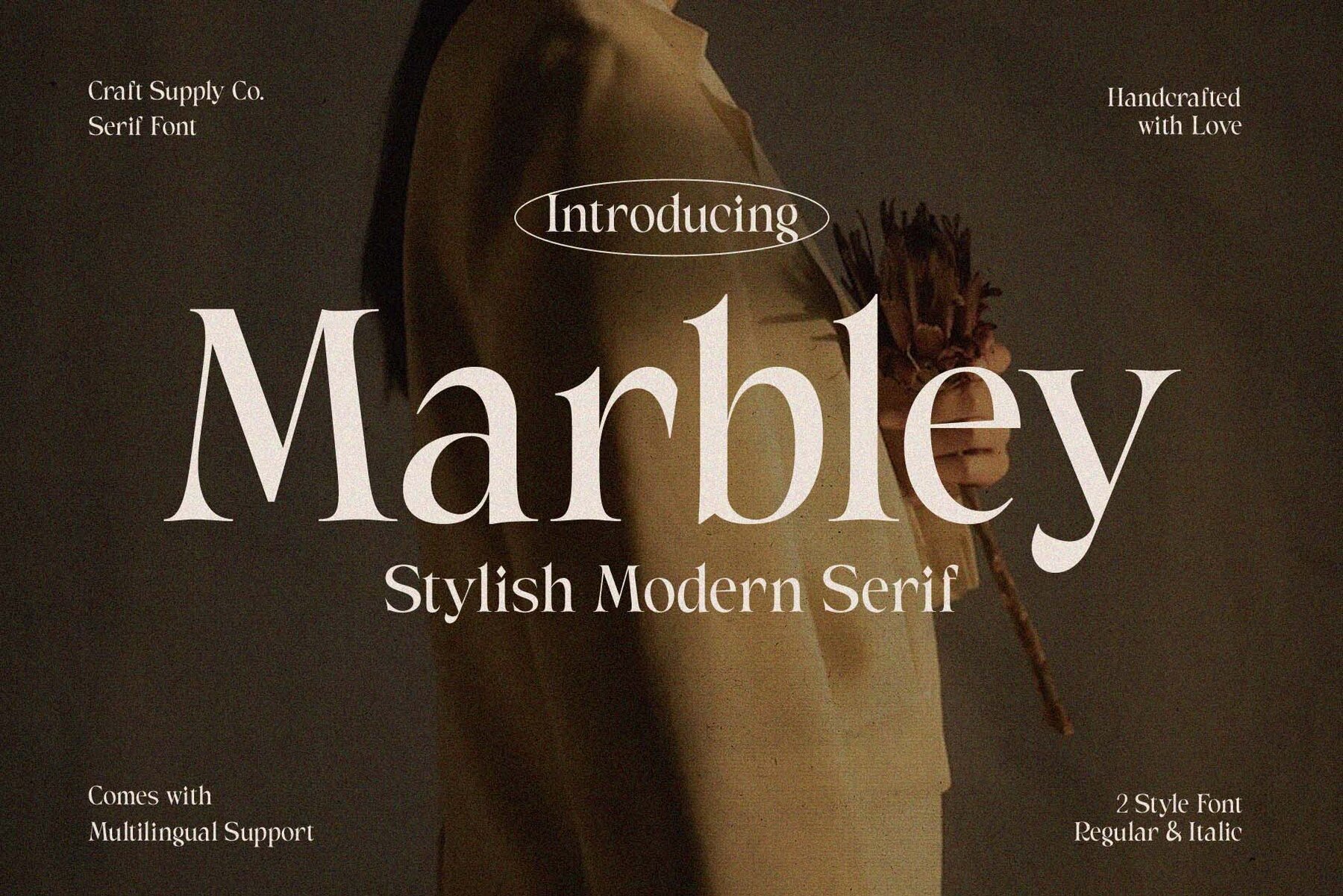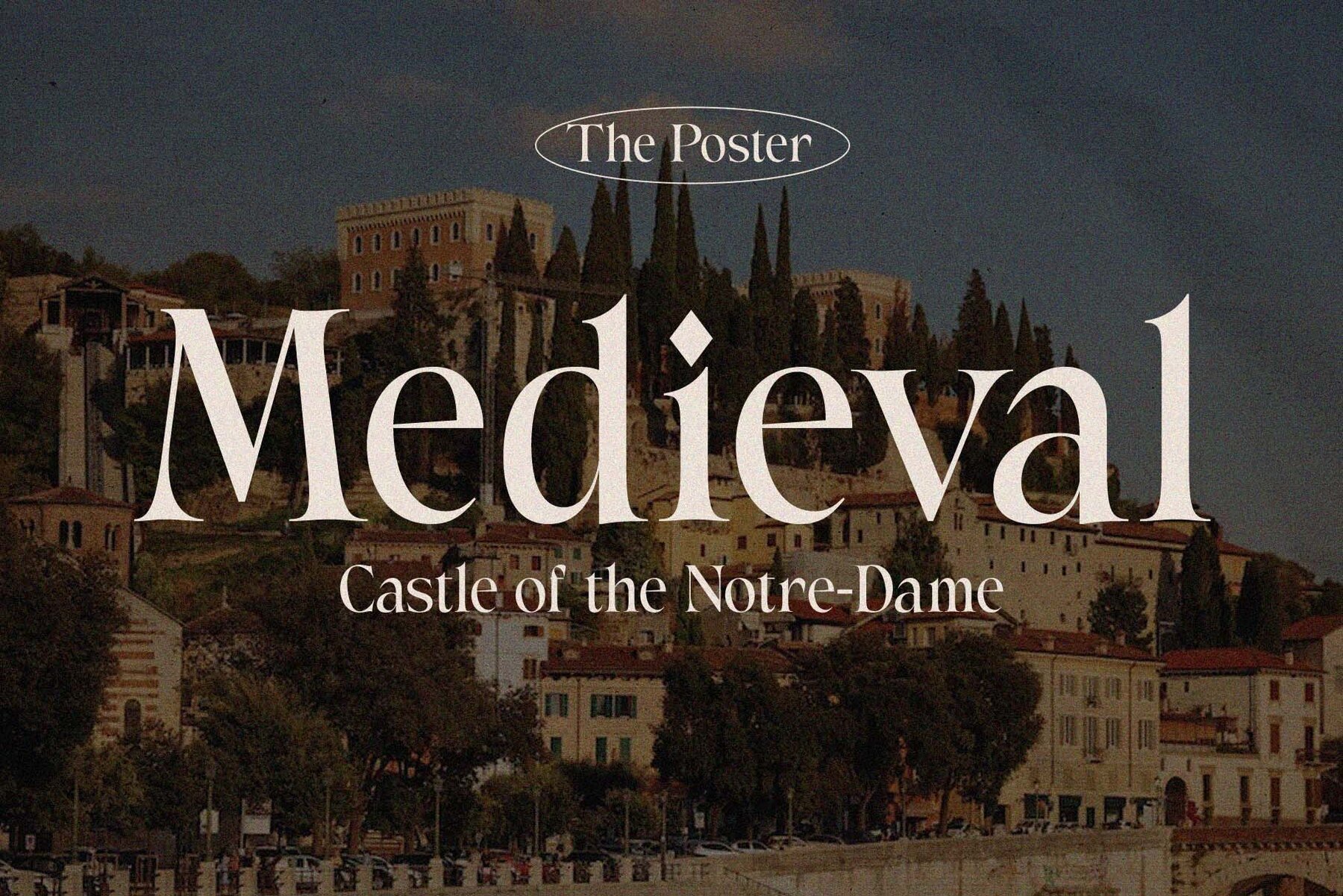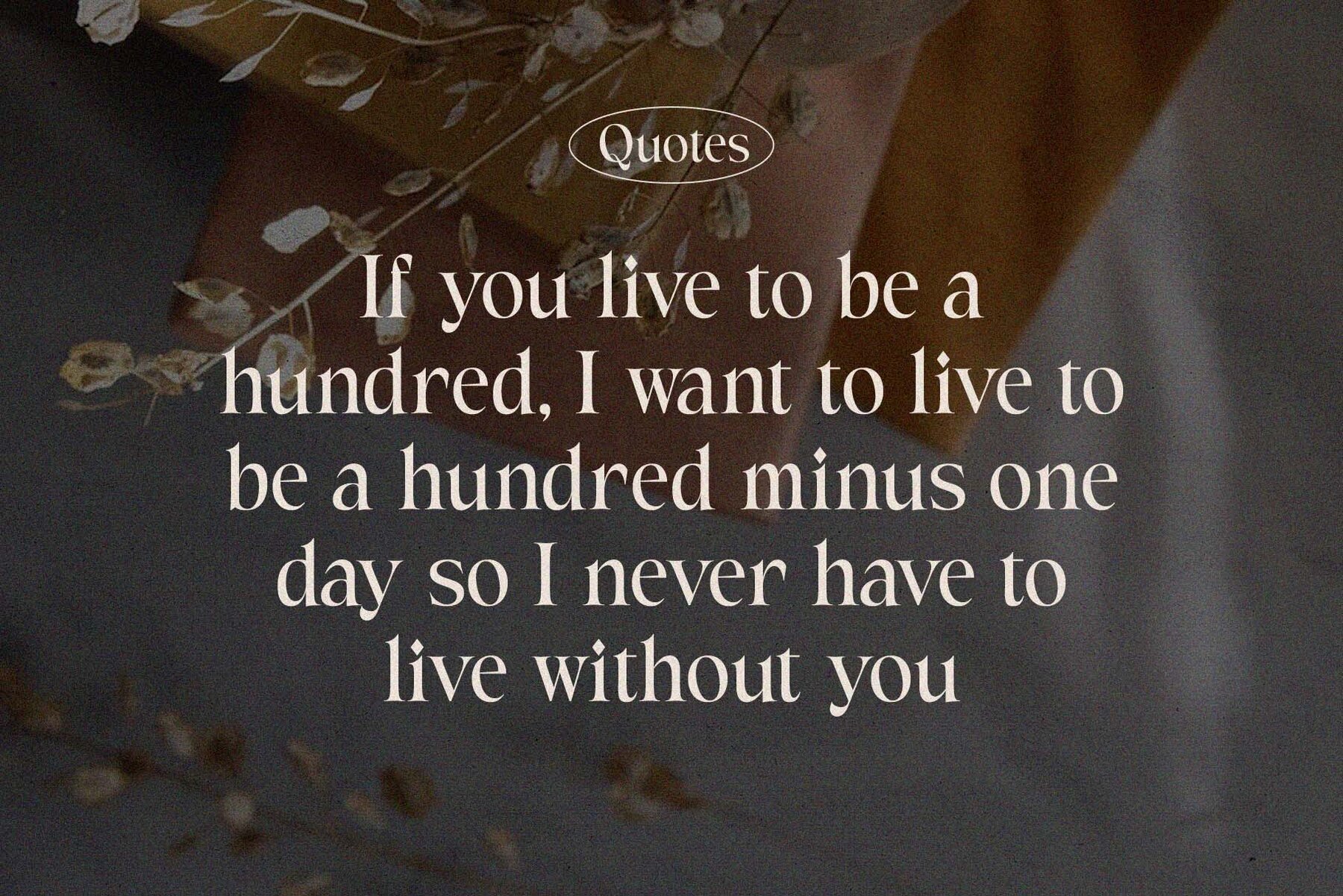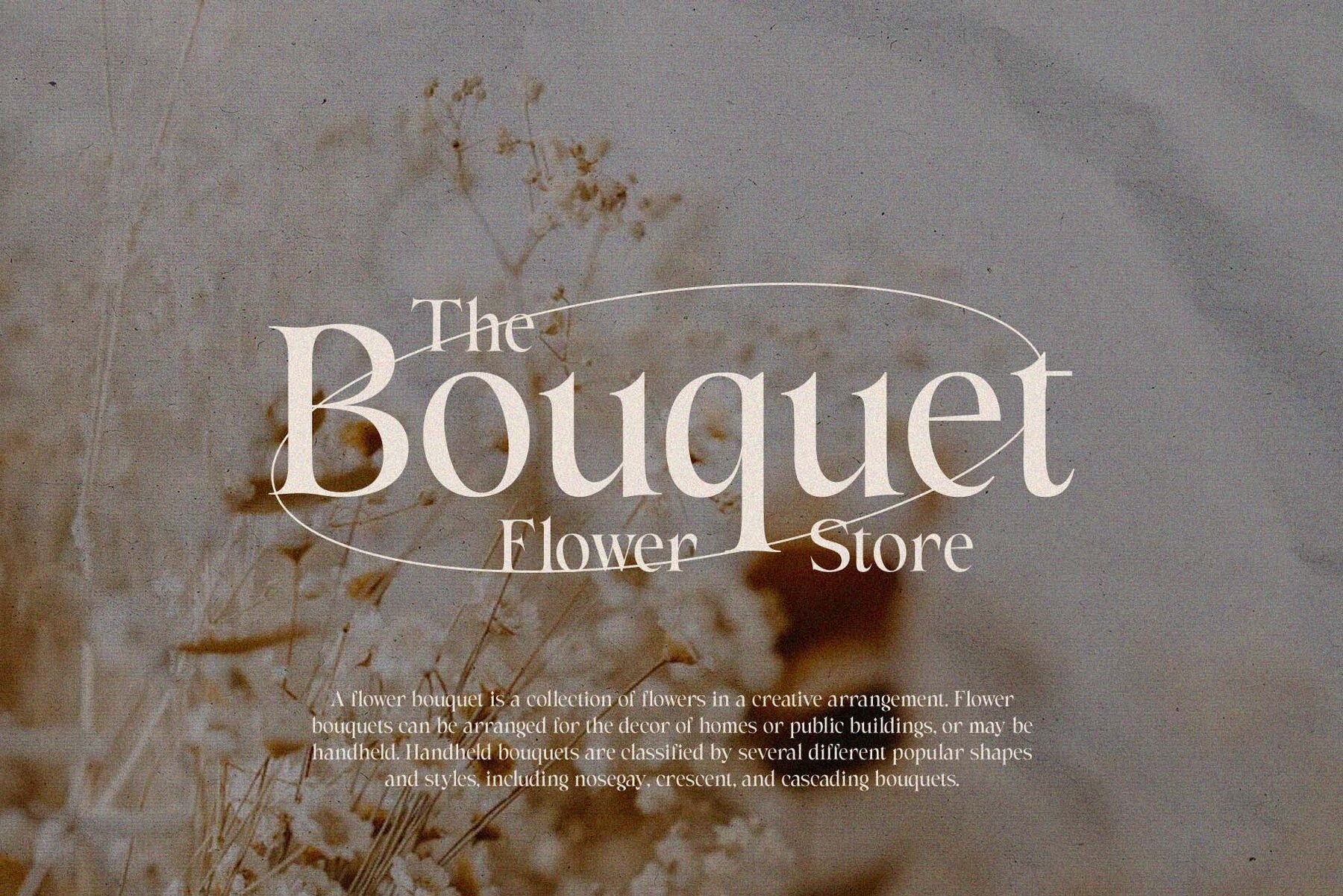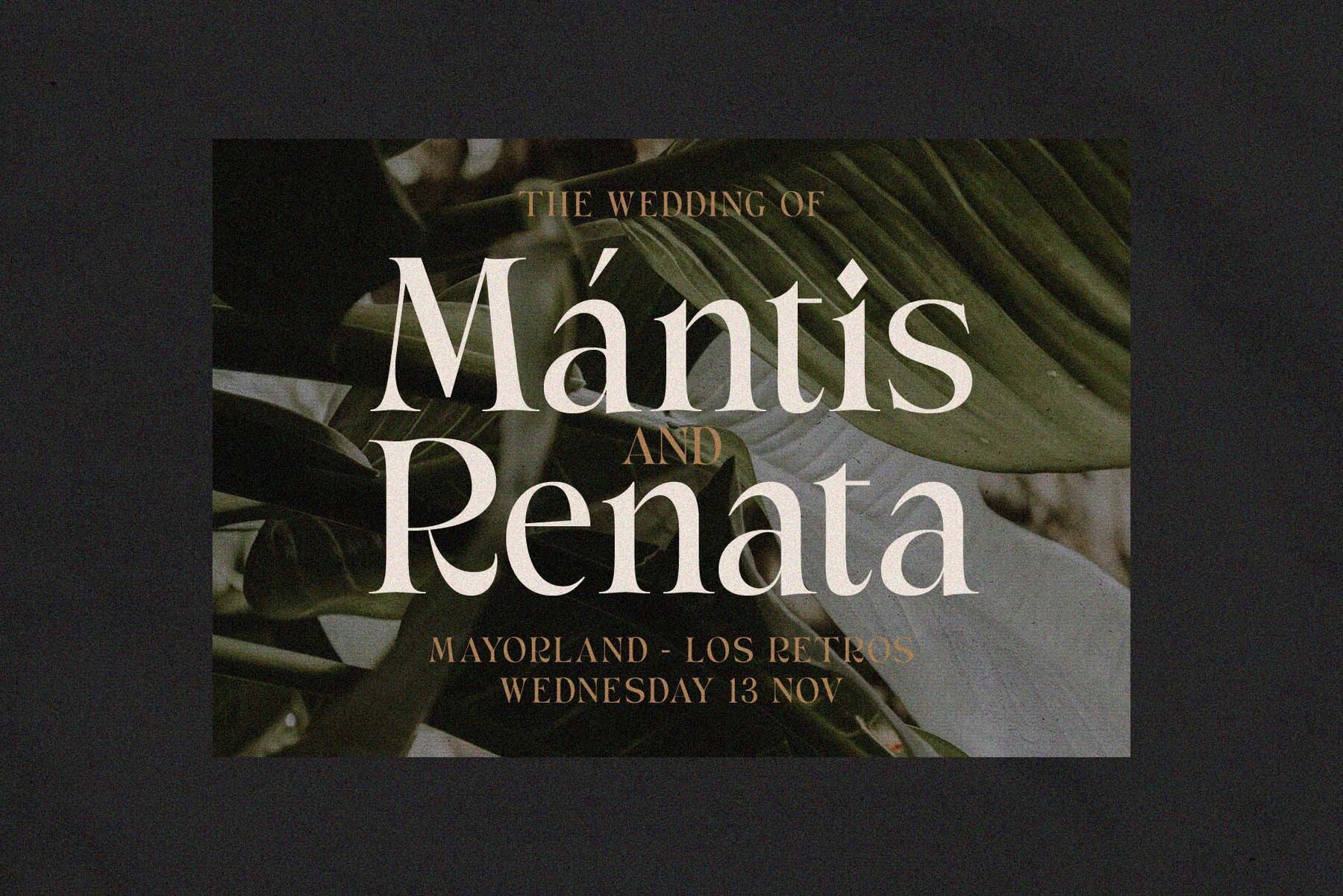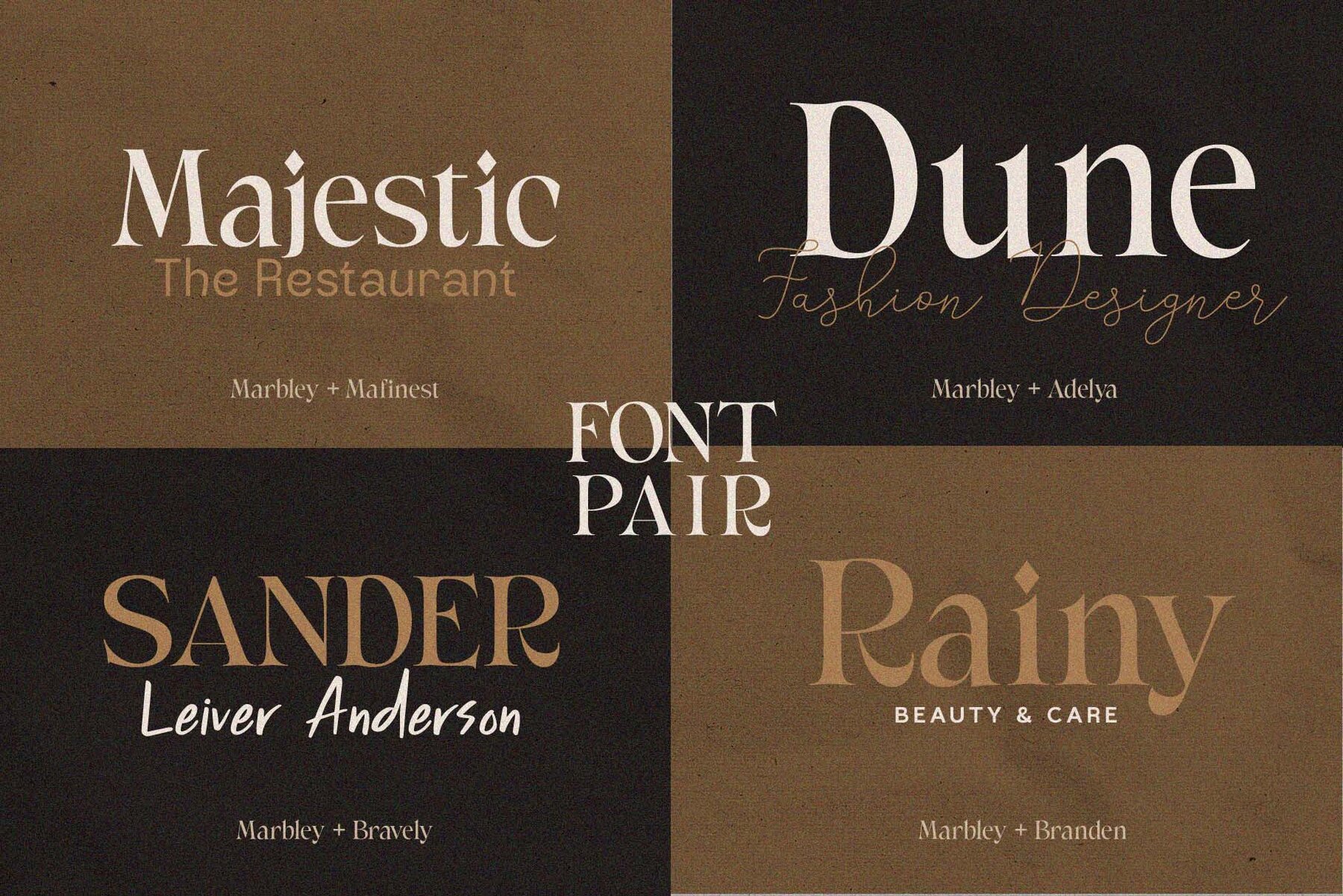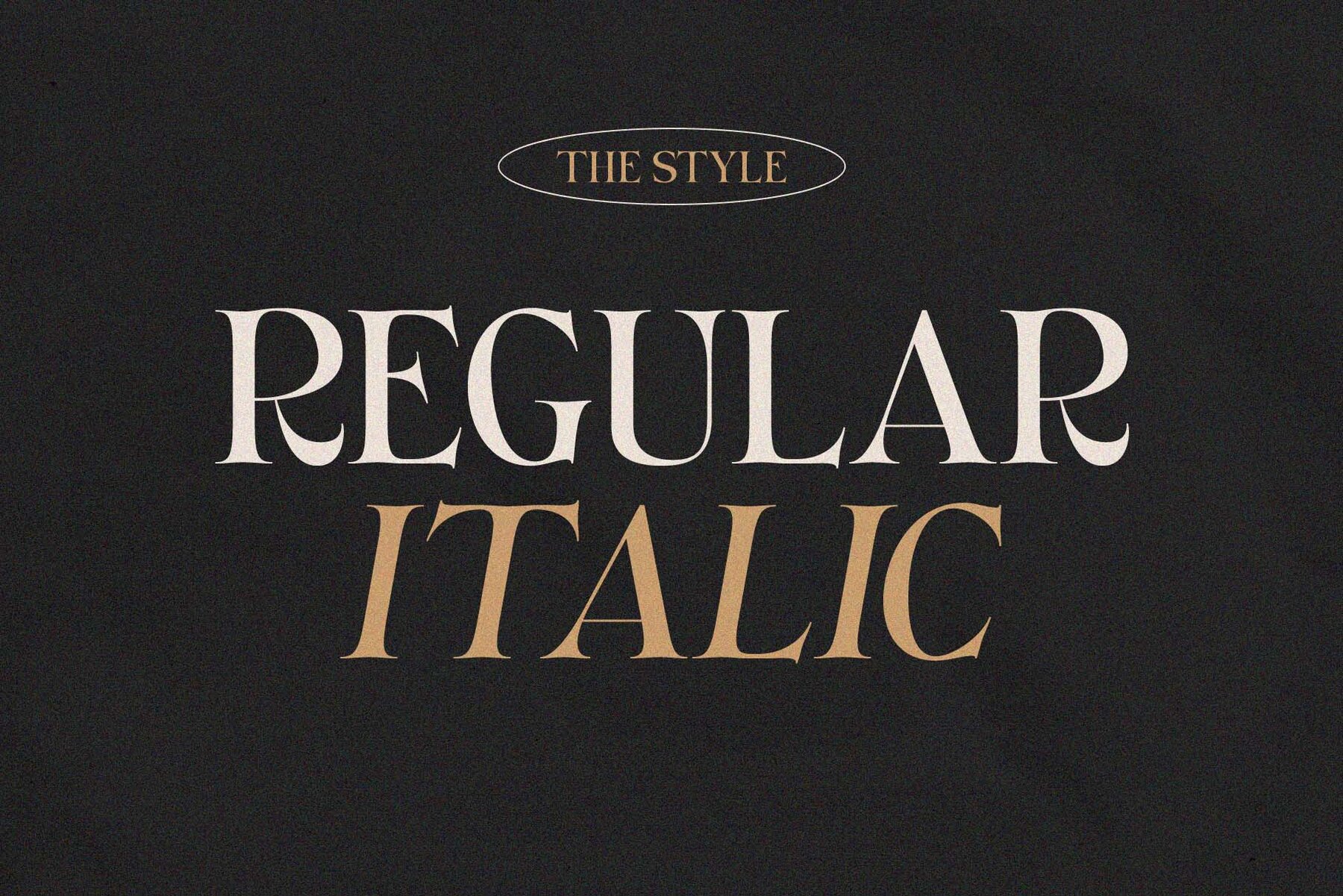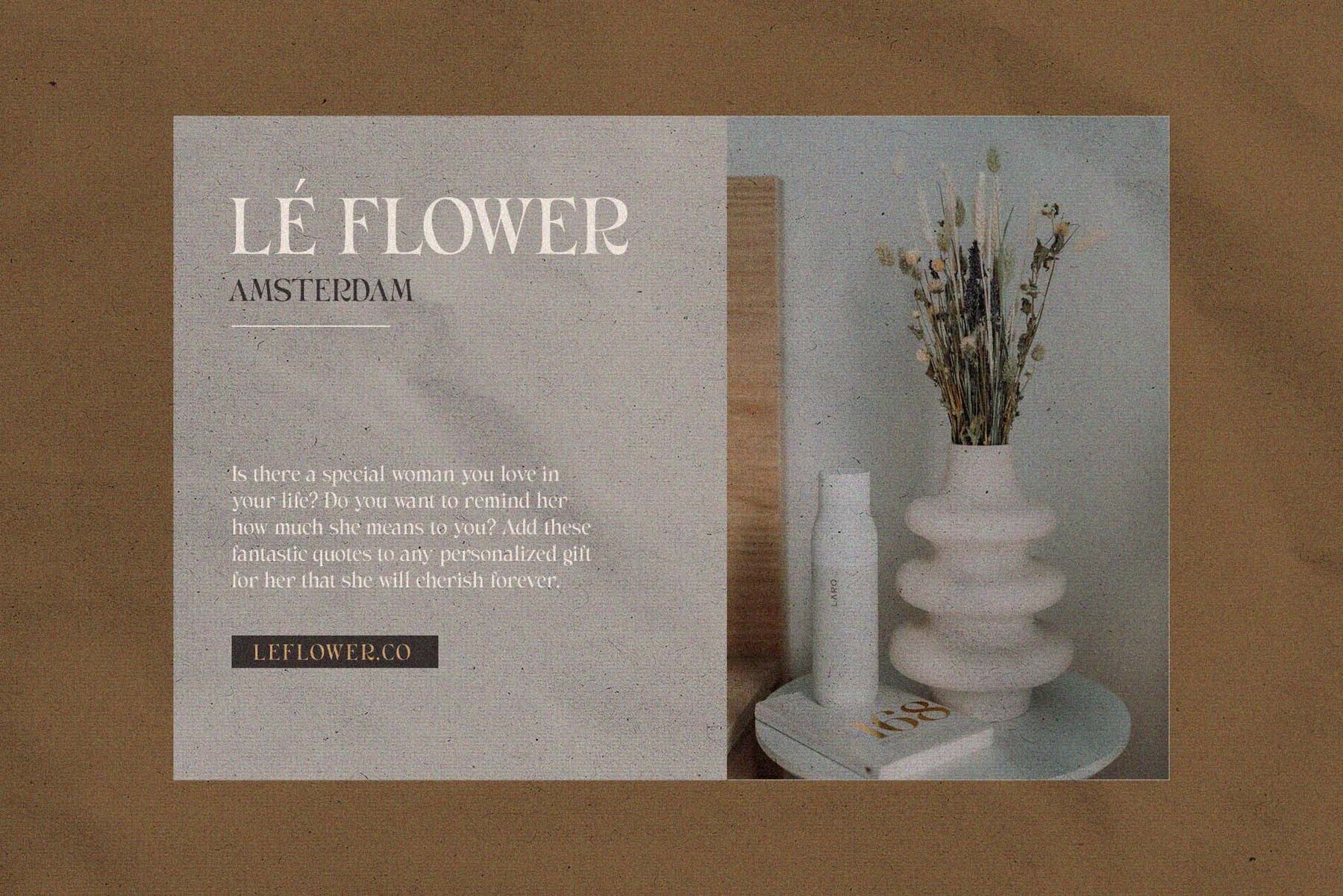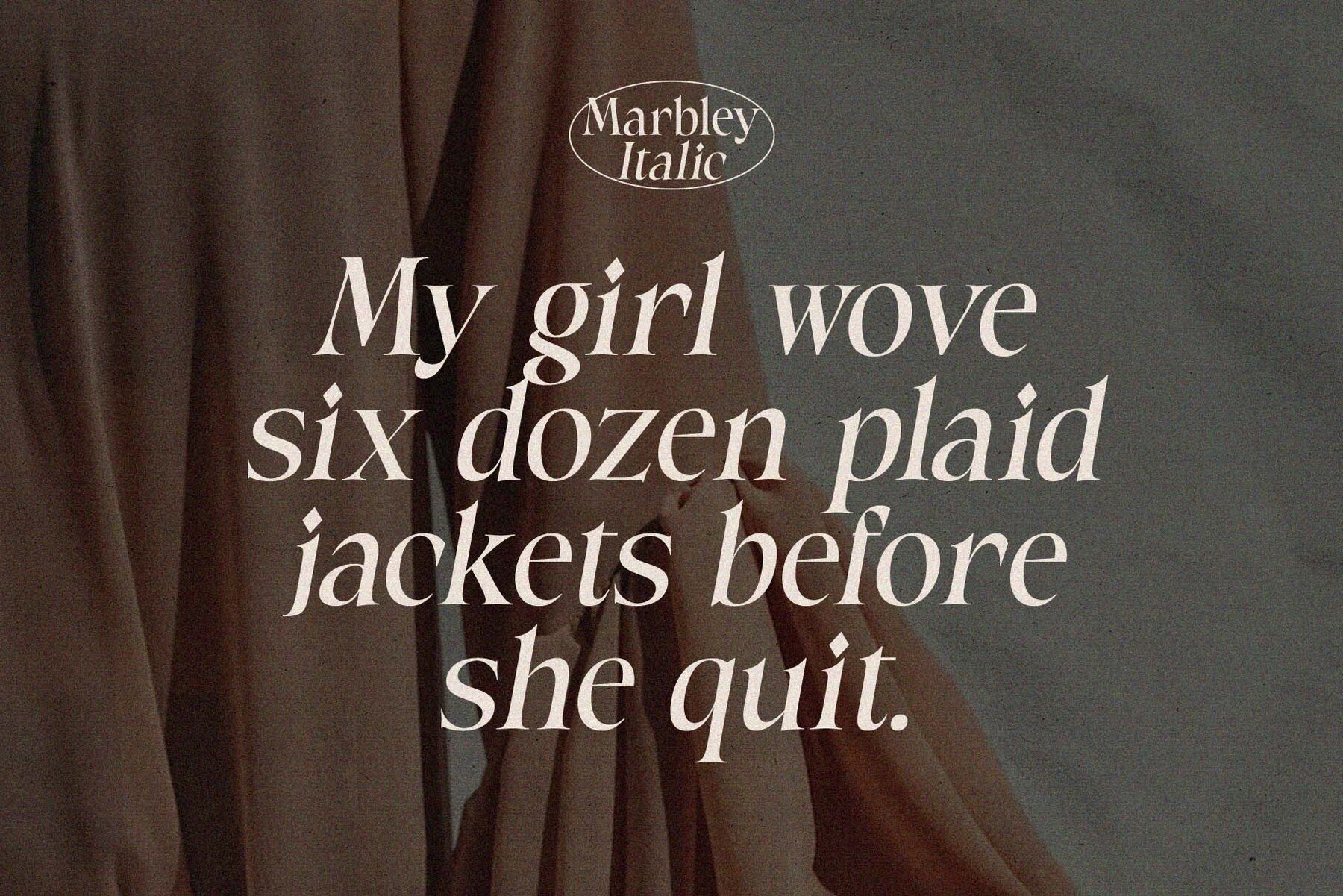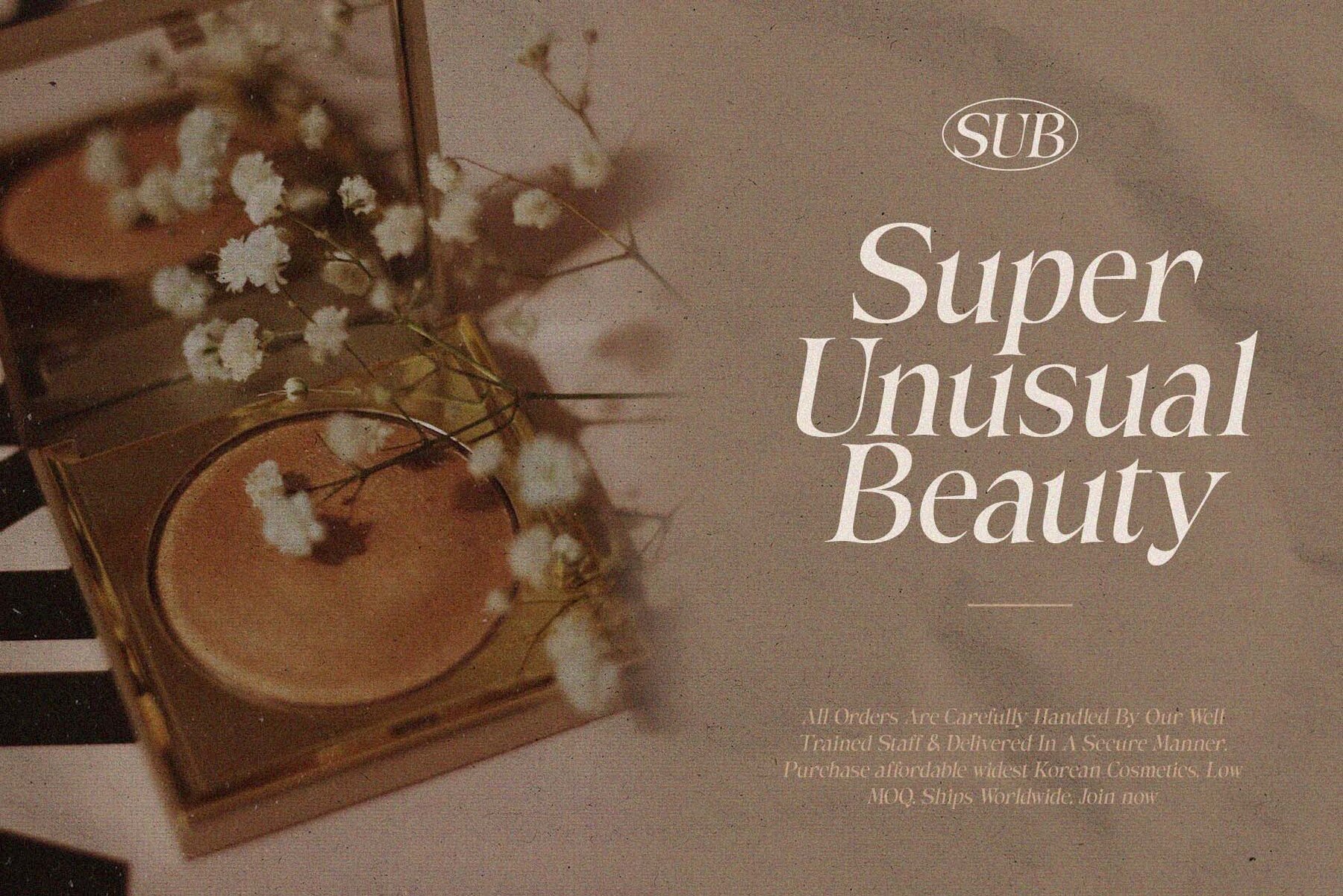
Marbley Font
In the realm of typography, Marbley emerges as a modern serif font that infuses a dramatic flair into any project. Distinguished by its exquisite stroke detail and pointed serifs, Marbley offers a striking visual effect, enhancing any text it's paired with, from commanding website headlines to minimalist body text.Marbley: A Refined Serif for Contemporary Designs